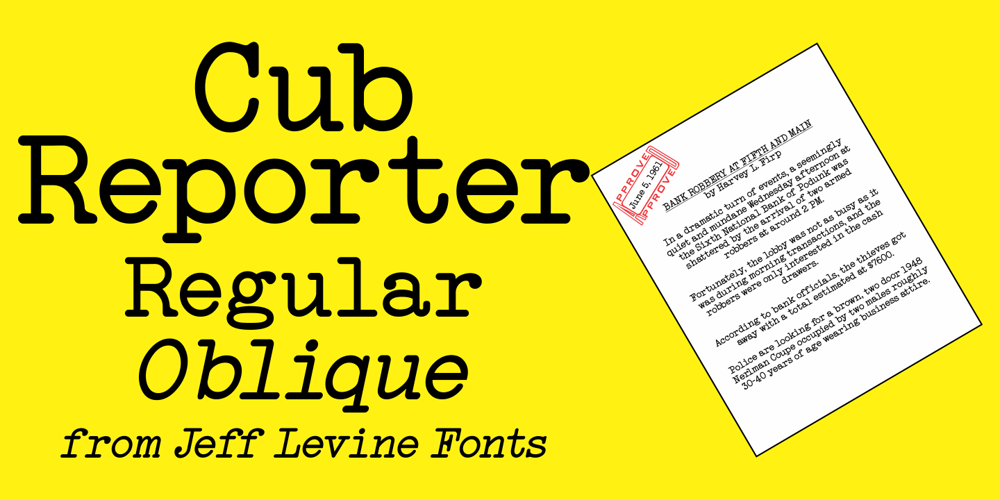
Cub Reporter JNL
Cub Reporter JNL font
Cub Reporter JNL Font Family was designed by Jeff Levine and published by Jeff Levine. Cub Reporter JNL contains 2 styles and family package options. In the 1934 edition of the American Type Foundry’s “Book of American Type” is a selection of letterpress fonts which emulate typewriter faces. One design named “Bulletin Typewriter” served at the model for Cub Reporter JNL, and is available in both regular and oblique versions. The font has been monospaced in order to add a more traditional typewriter look to any project.